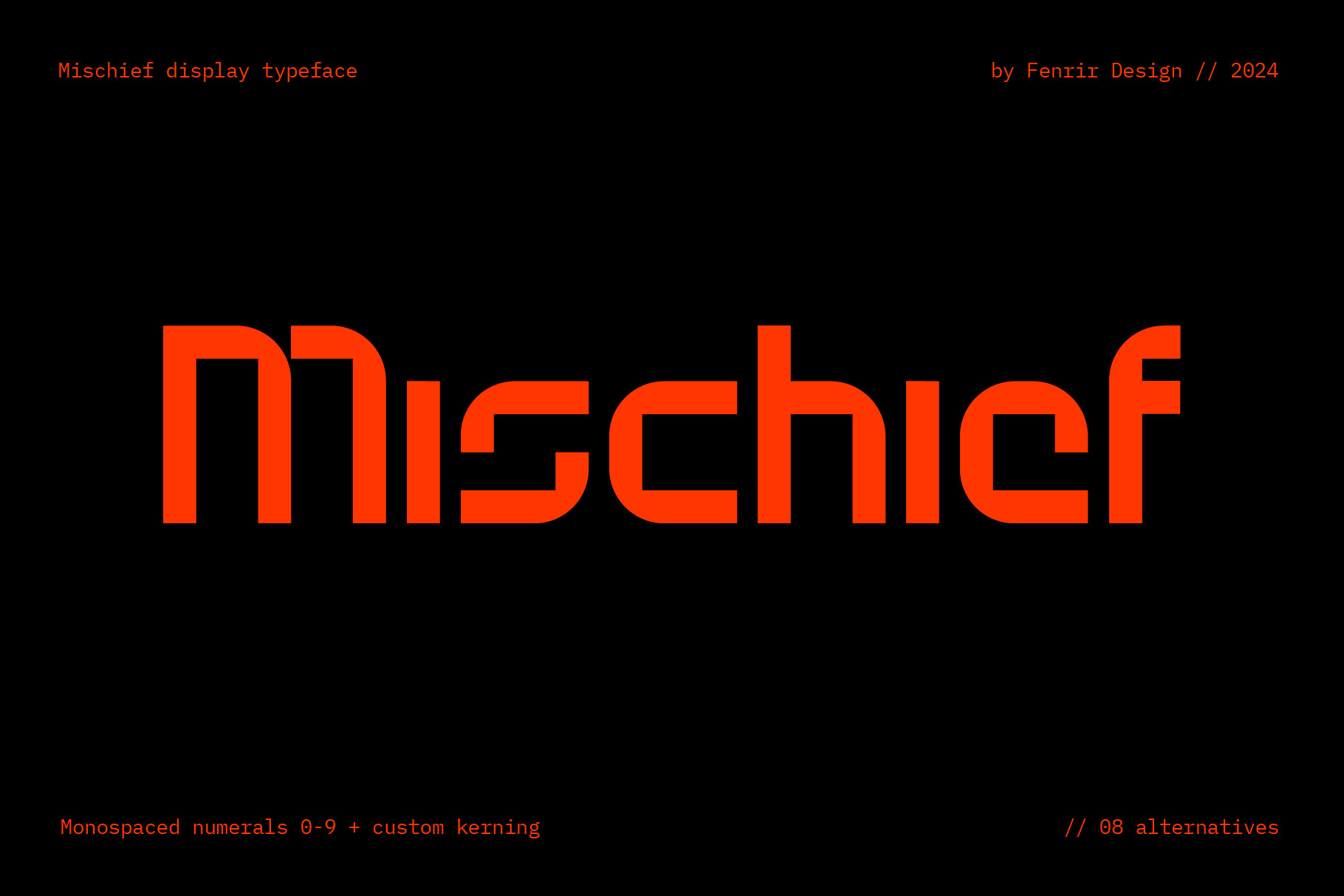
Mischief Display typeface
Mischief display is a futuristic typeface created by Fenrir Design. This tech-looking type works great for big headlines, branding, packaging and other typographic applications. The characters are mono linear, with a few optical corrections. One weight to rule them all ;)